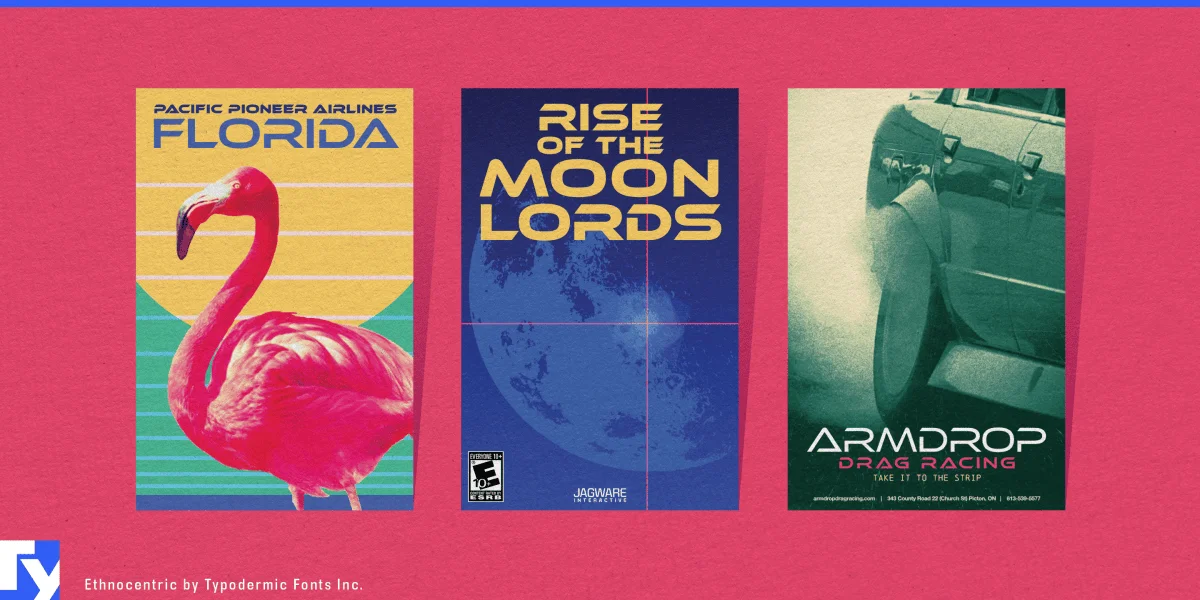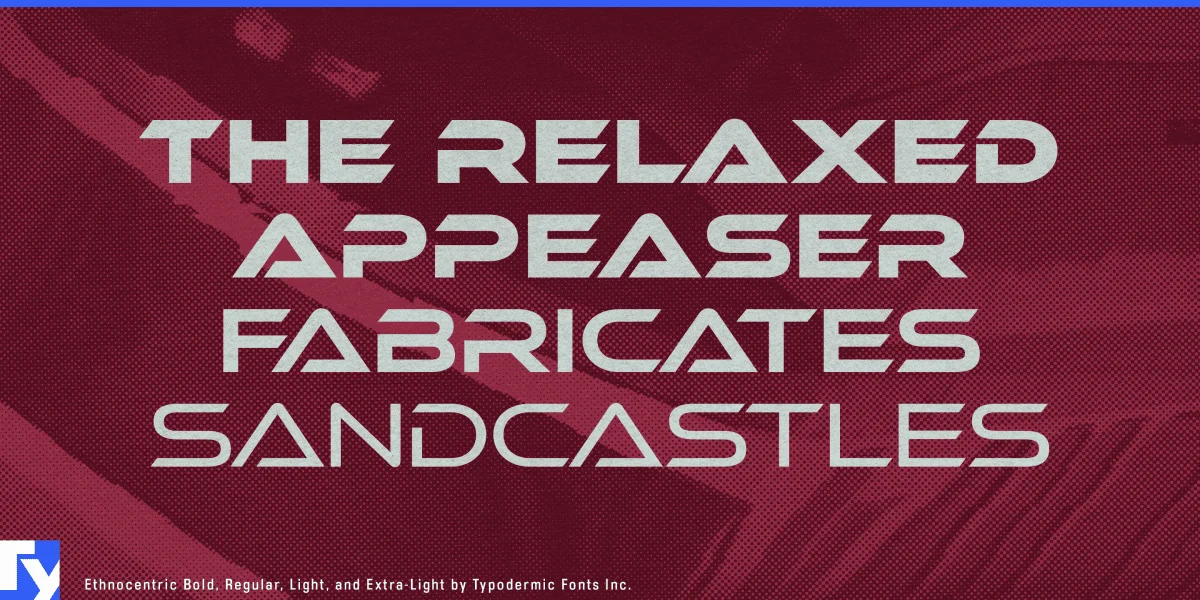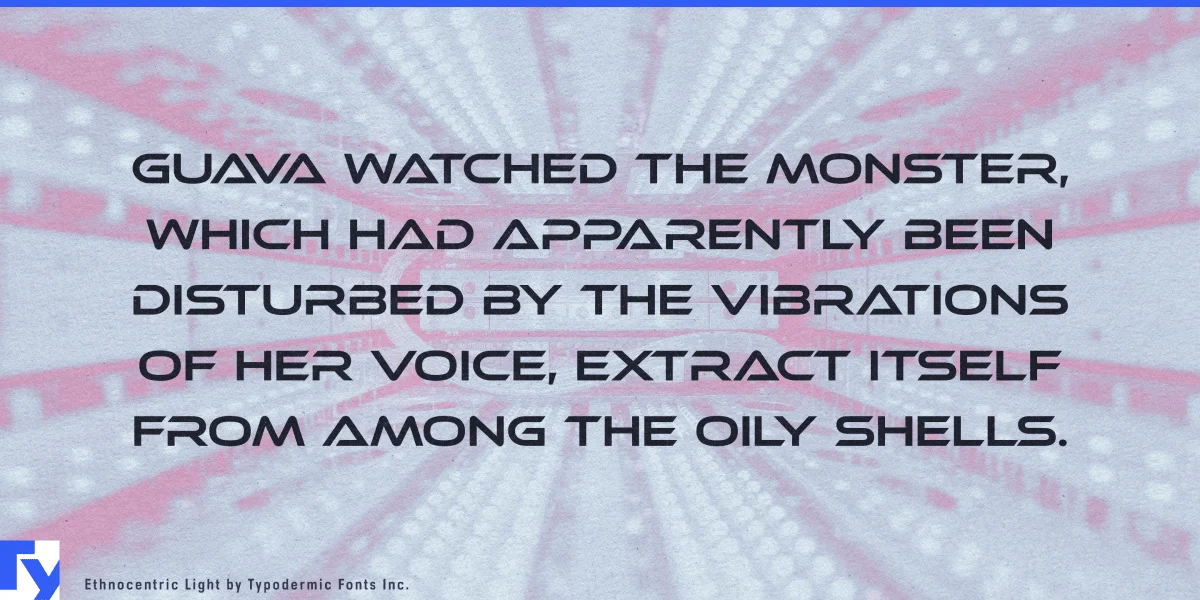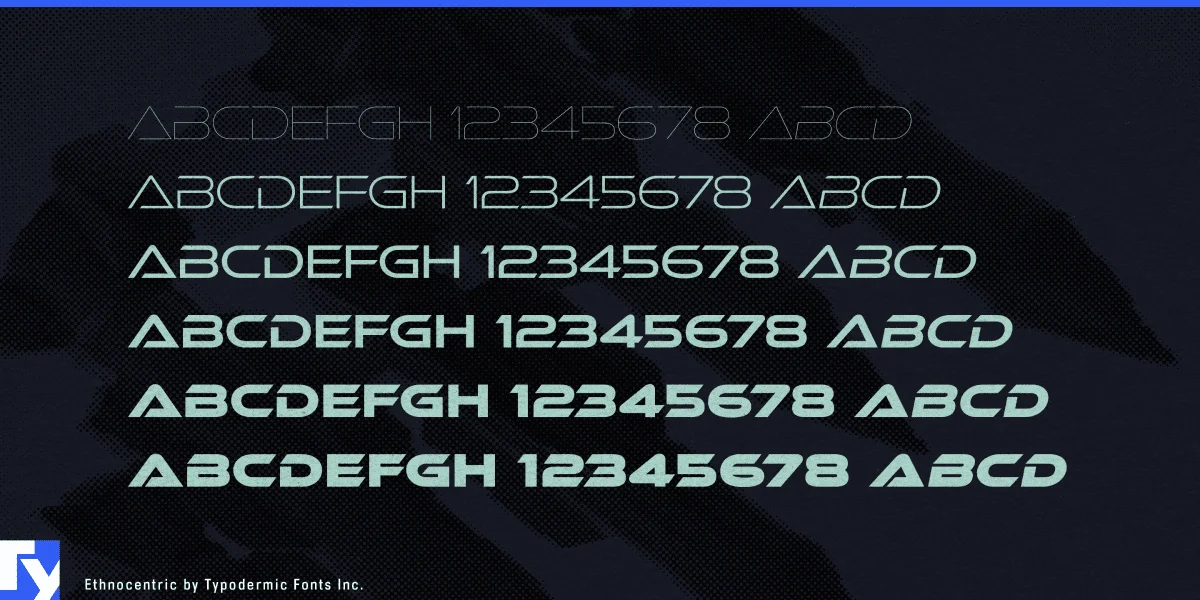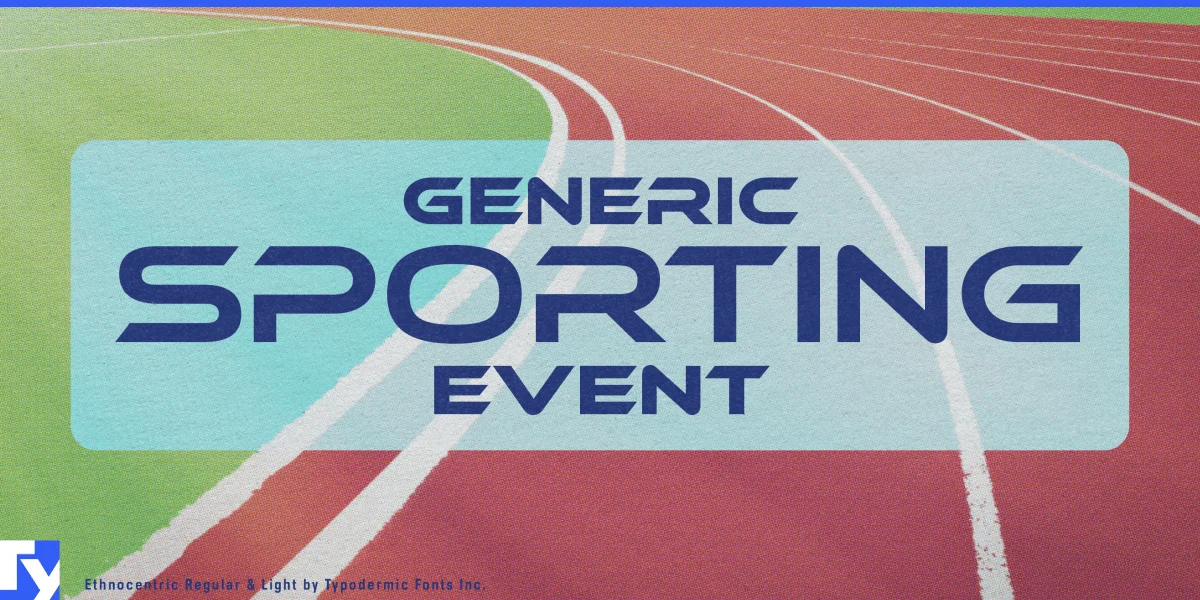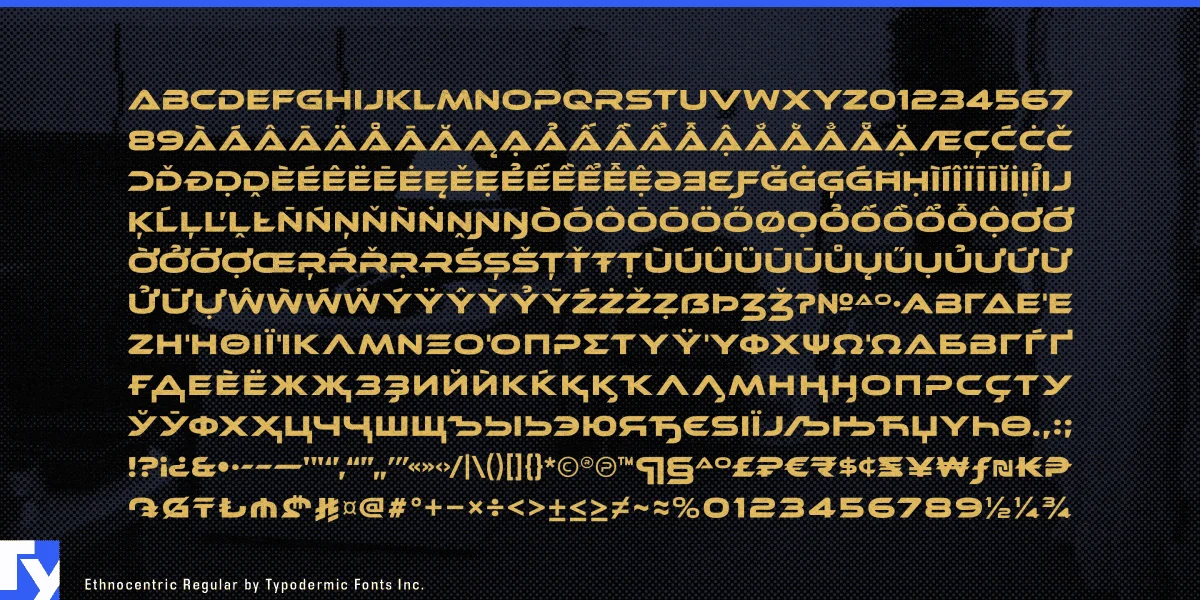
Ethnocentric Font
Designed by Raymond Larabie
Ethnocentric channels the sleek energy of late-1990s and early-2000s tech aesthetics. Its wide proportions, angled cuts, and signature gaps suggest movement and precision, balancing power with control. Light weights feel aerodynamic; heavy ones hit like machinery. What began as a half-remembered sign became a design icon, evolving through games, racing graphics, and sci-fi branding. With six weights and italics, the all-caps family covers extended Latin, Cyrillic, and Greek scripts. It’s built for titles, interfaces, and logos where speed and geometry define the look. Ethnocentric isn’t just futuristic…it’s the shape of motion itself.